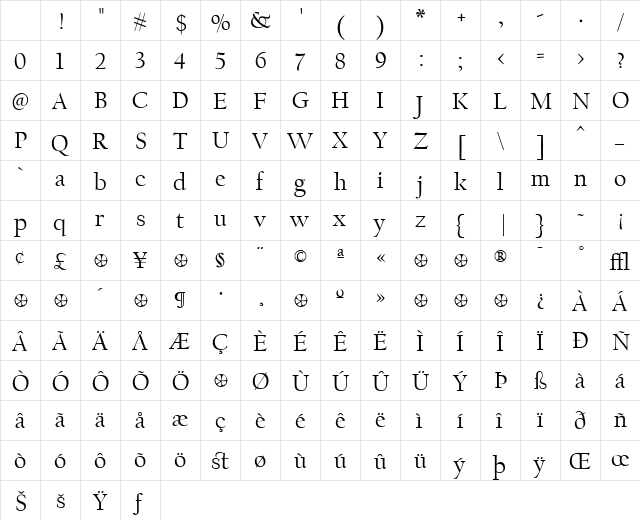
Complete CalifornianMiddle Regular glyph index. Displaying only characters natively supported by CalifornianMiddle Regular font.
CalifornianMiddle is a composed and adaptable typeface that performs quietly and consistently across a wide range of design contexts.